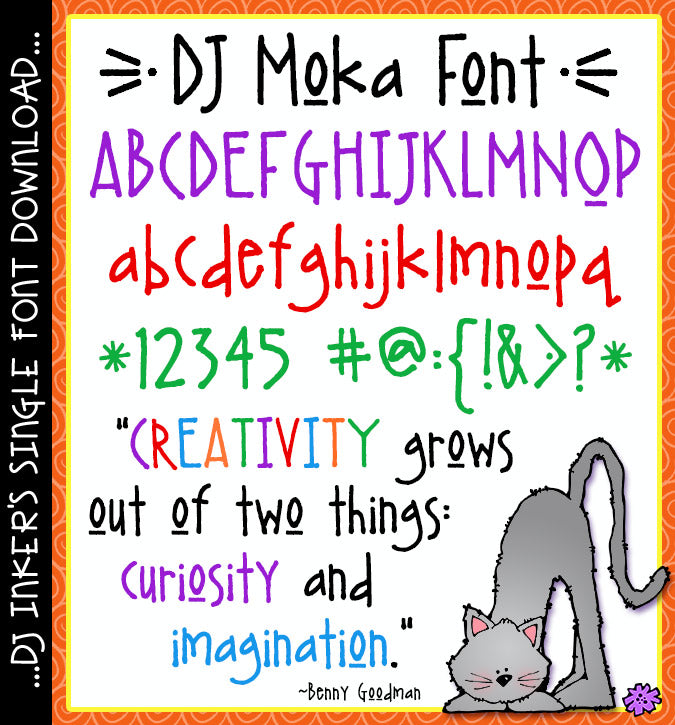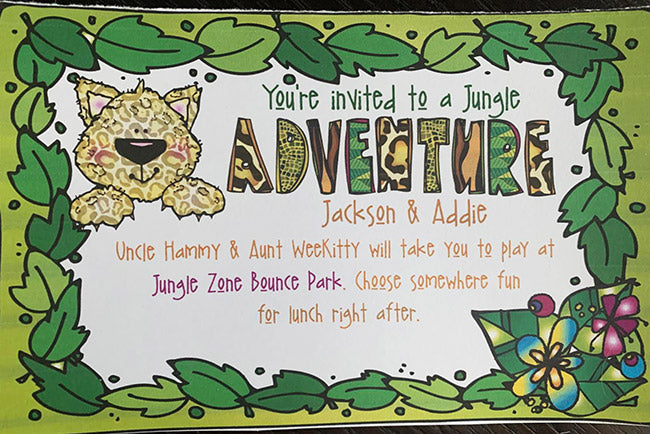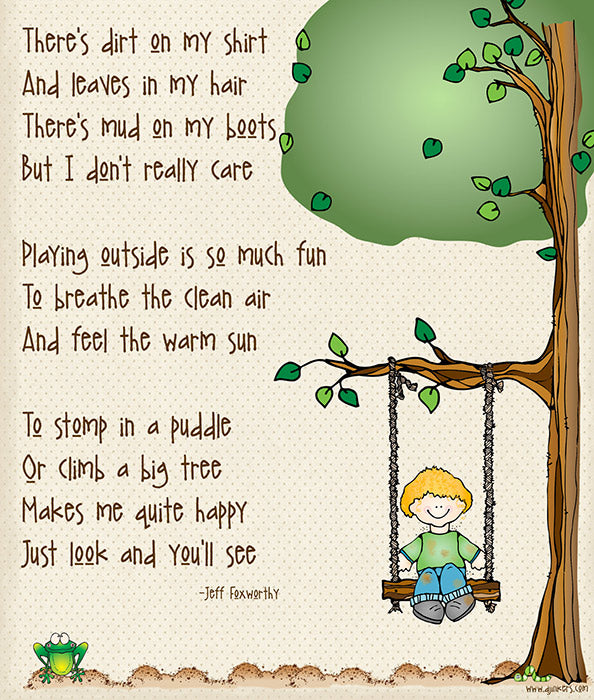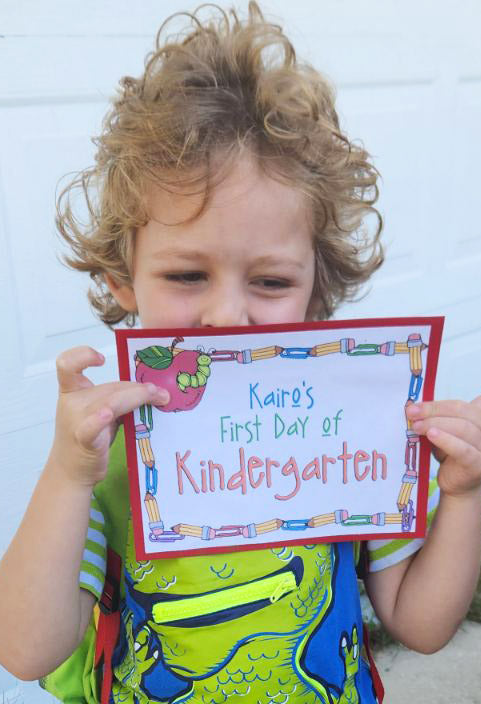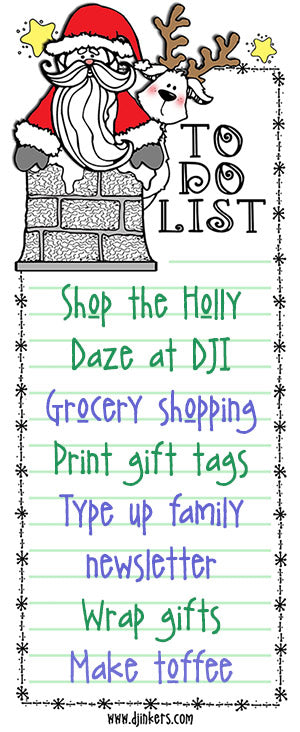
DJ Moka Font Download
You'll love our playful font, DJ Moka! These hand-drawn letters are full
of personality, but still easy to read and type in any size. Spice-up your
newsletters, handouts, project covers, home organization, crafting and
smiles at school.